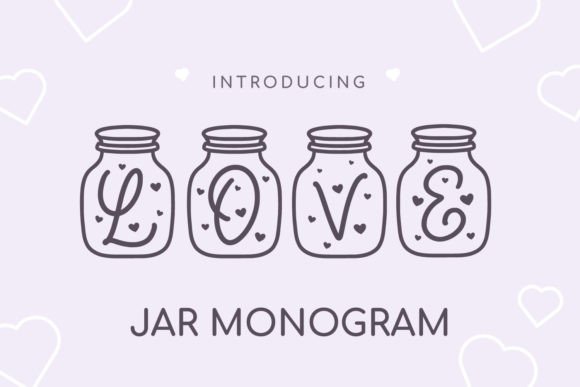
Step into the world of Love Jar Monogram, a font family that embodies timeless elegance and delicate charm. Crafted with meticulous care by Typefar, this decorative font collection offers a treasure trove of gorgeous capital letters that will elevate your crafting projects to new heights of sophistication.
Unleash your creativity with Love Jar Monogram, the perfect font for Cricut cutting. Its intricate details and graceful lines will add a touch of artistry to your personalized cards, invitations, home décor, and more. Let your imagination soar as you explore the endless possibilities of this enchanting font.
With Love Jar Monogram, you'll discover a font that captures the essence of romance and beauty. Its whimsical characters dance across the page, evoking a sense of nostalgia and timeless charm. Whether you're creating heartfelt love letters, delicate wedding invitations, or simply adding a touch of elegance to your everyday projects, Love Jar Monogram is the font that will make your words come alive.
Experience the joy of crafting with Love Jar Monogram, a font that sparks creativity and ignites the imagination. Its versatility knows no bounds, allowing you to explore a wide range of crafting techniques and styles. From intricate papercuts to personalized embroidery, Love Jar Monogram will add a touch of refinement and sophistication to your creations.
Immerse yourself in the world of Love Jar Monogram, a font that will transform your crafting journey. Its timeless beauty and delicate charm will captivate your audience, leaving them in awe of your creations. Embrace the endless possibilities of this enchanting font and let your imagination run wild.